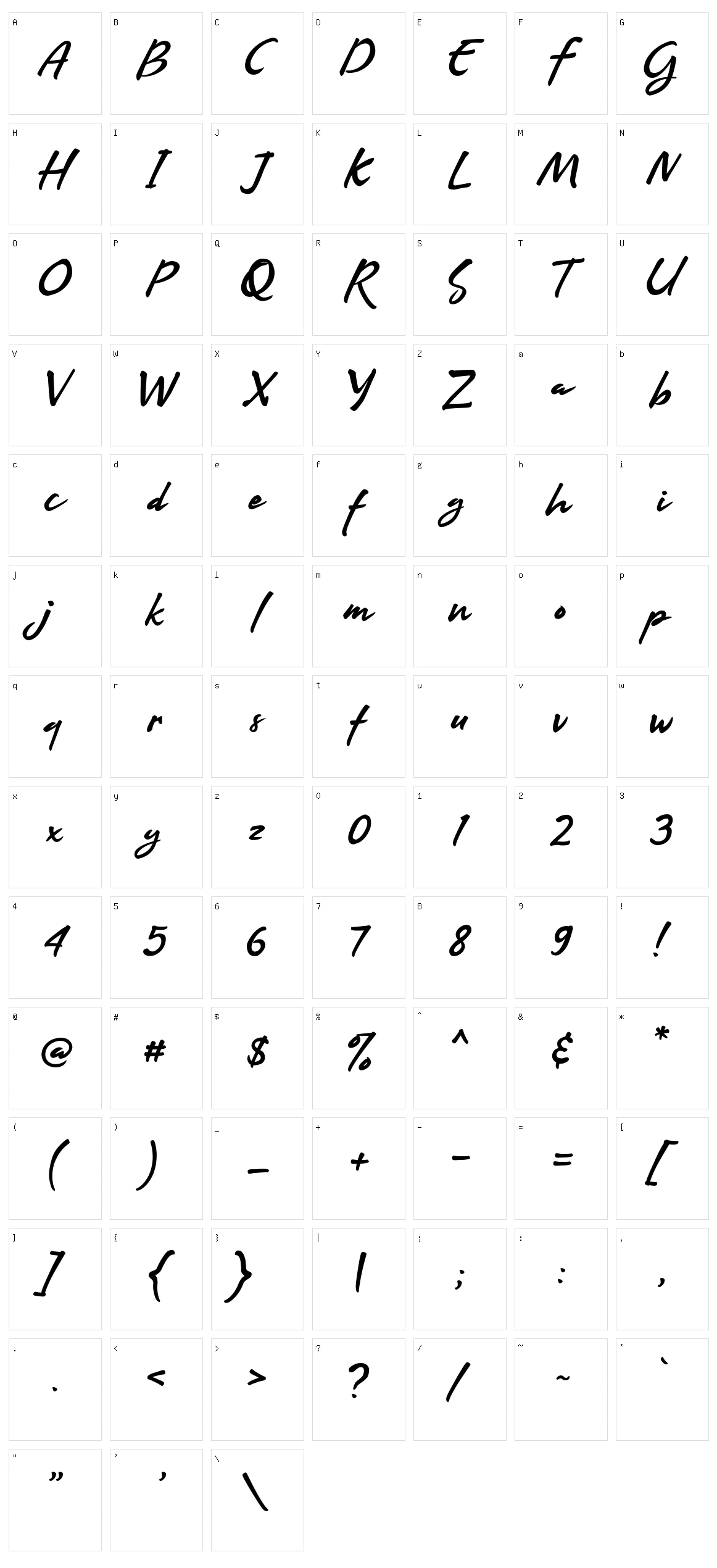
The free font Arkipelago is carefully designed by Nasir Udin Studio, showcasing a thoughtful balance of creativity and usability and falls under the Script font style. When you download the ZIP file, it contains only 32.59 KB of font files, making it lightweight and quick to download. Please review the license details below to understand permitted usage and distribution rights. If license information is not available, we recommend using this font for personal projects only or contacting the author directly for commercial usage permissions.